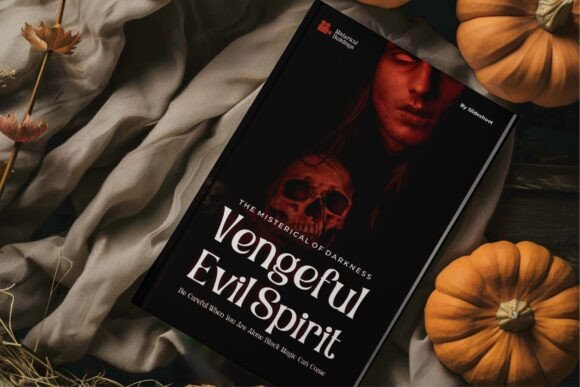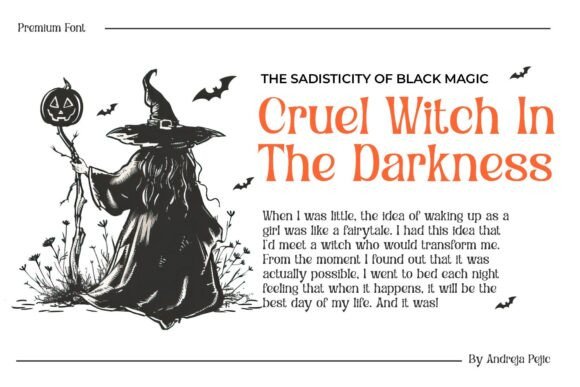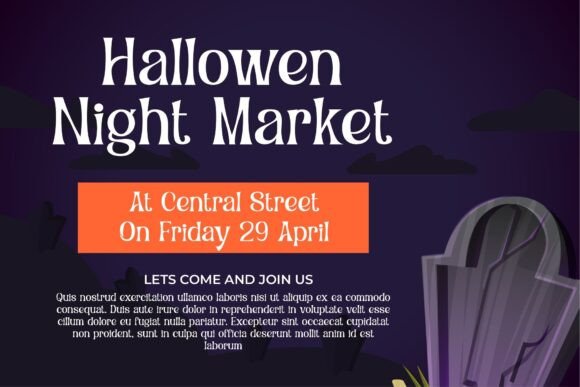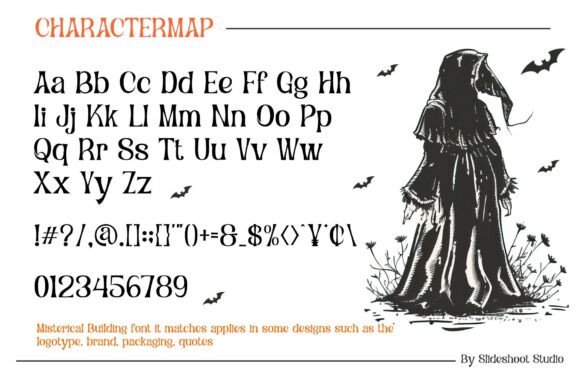
Introduction to Misterical Buildings Font Font
Fonts play a crucial role in design, and the Misterical Buildings Font font is a typeface that brings both character and versatility to any project. Whether you’re working on a branding project, a website, or a print design, the Misterical Buildings Font font offers a unique style that can elevate your work.
Misterical Buildings is a vintage-inspired display font with a touch of mystery and elegance.
Its tall, slightly curved letterforms are perfect for posters, book covers, retro branding, and editorial layouts Add a bold yet sophisticated flair to your designs with this versatile font.
Key Features of Misterical Buildings Font Font
Why Choose Misterical Buildings Font Font?
The Misterical Buildings Font font is more than just a typeface – it’s a design tool that helps you communicate your message with style and clarity. Its unique character set and versatile design make it suitable for a wide range of applications, from elegant invitations to bold headlines.
With its carefully crafted letterforms and balanced proportions, the Misterical Buildings Font font ensures readability and visual appeal across all mediums.
What makes Misterical Buildings Font font special?
The Misterical Buildings Font font stands out with its unique design, exceptional readability, and versatility across various design applications.